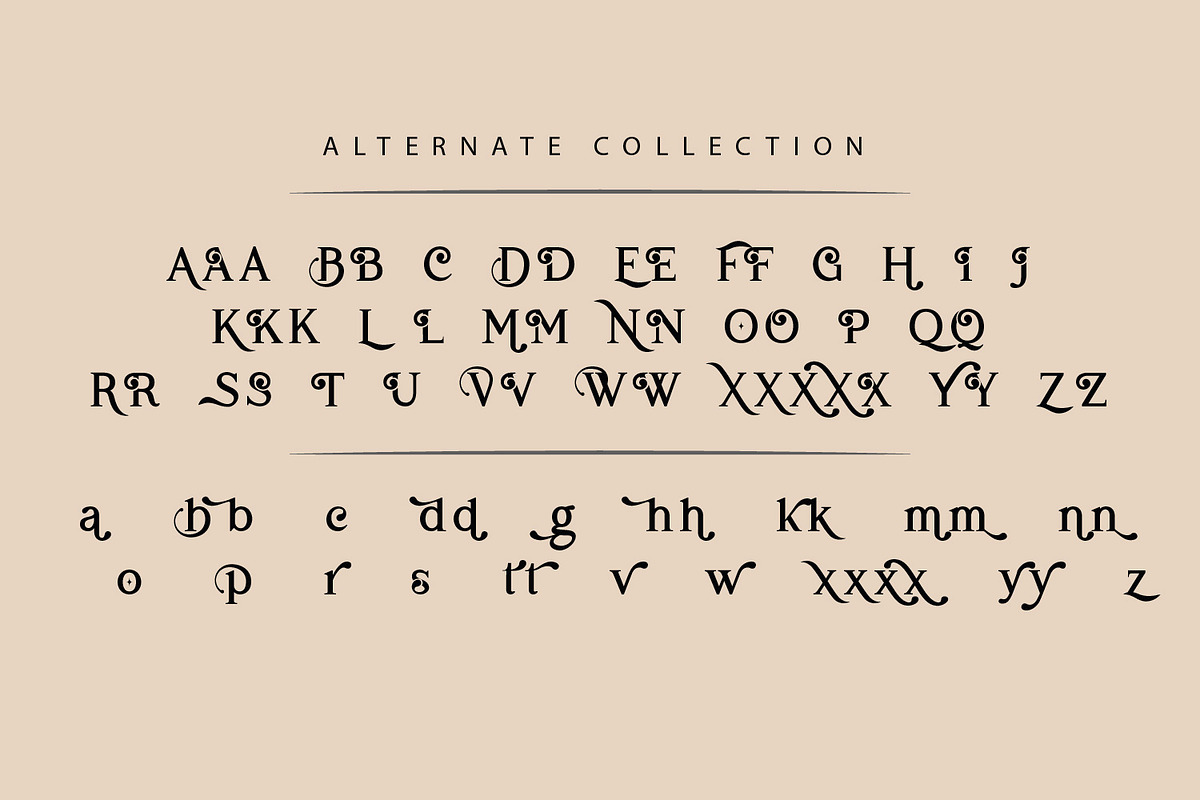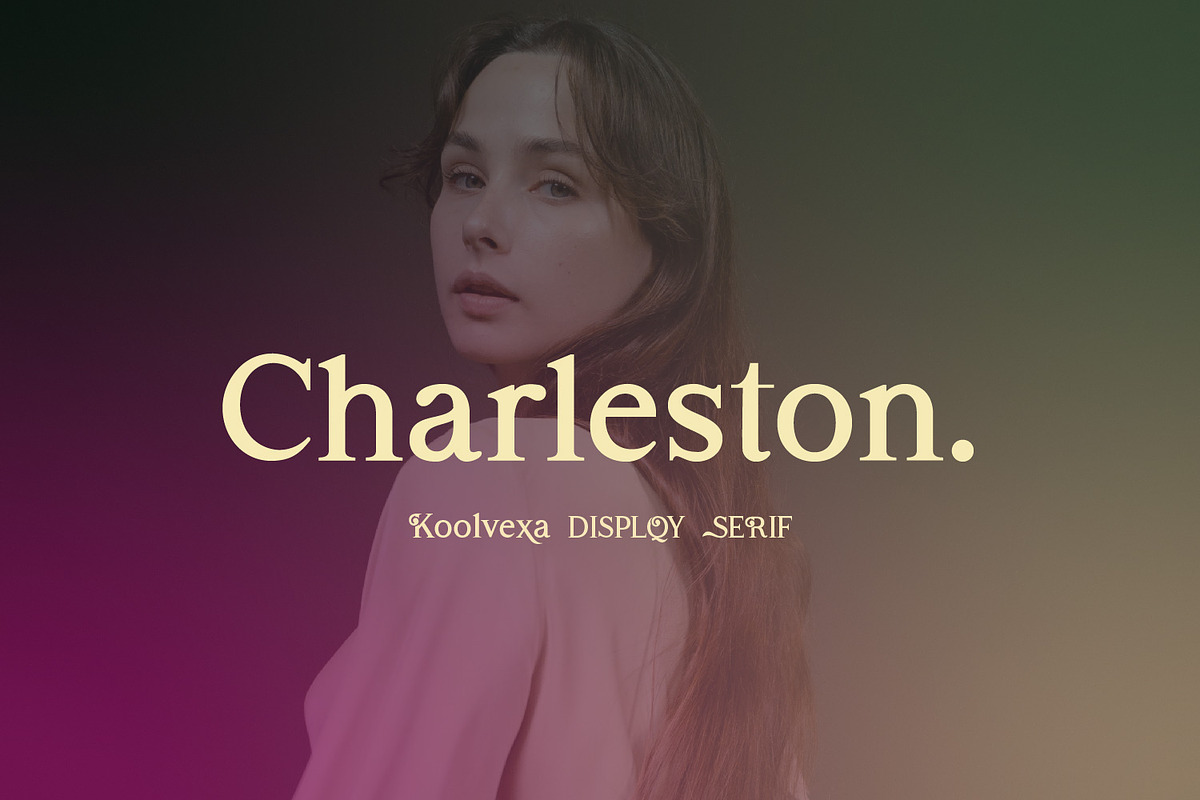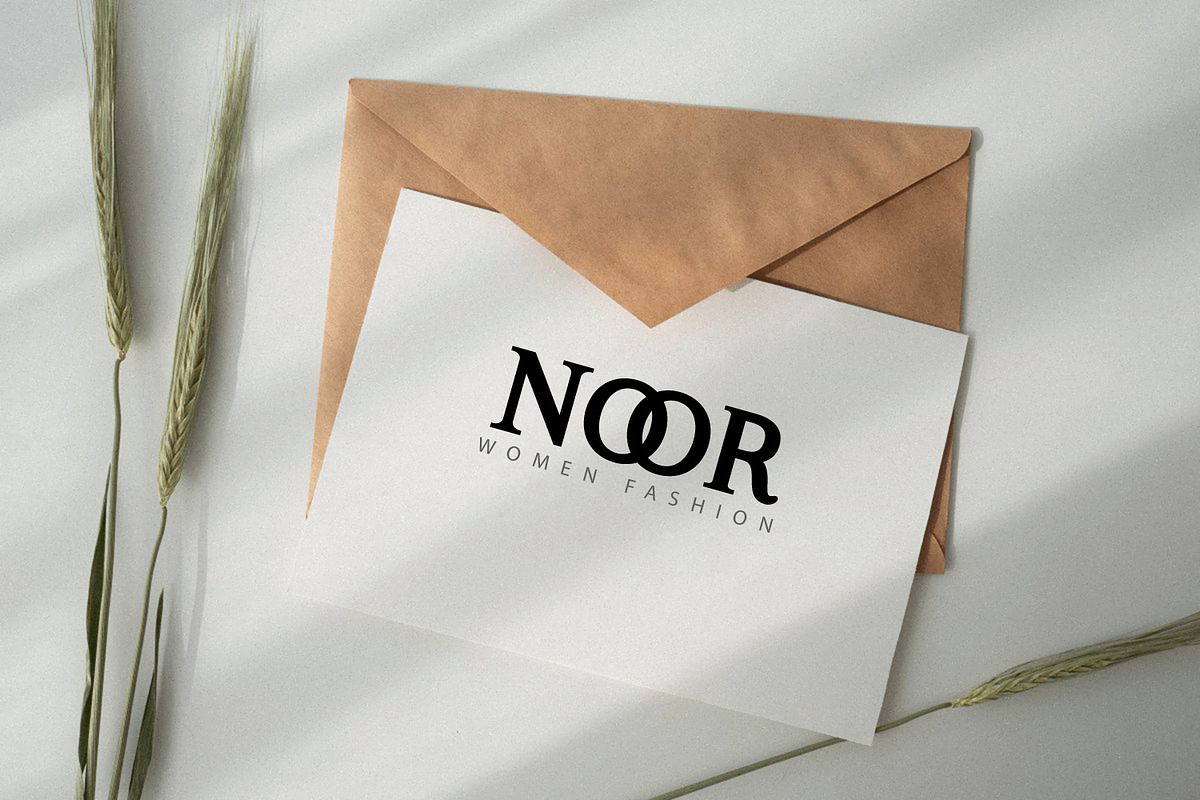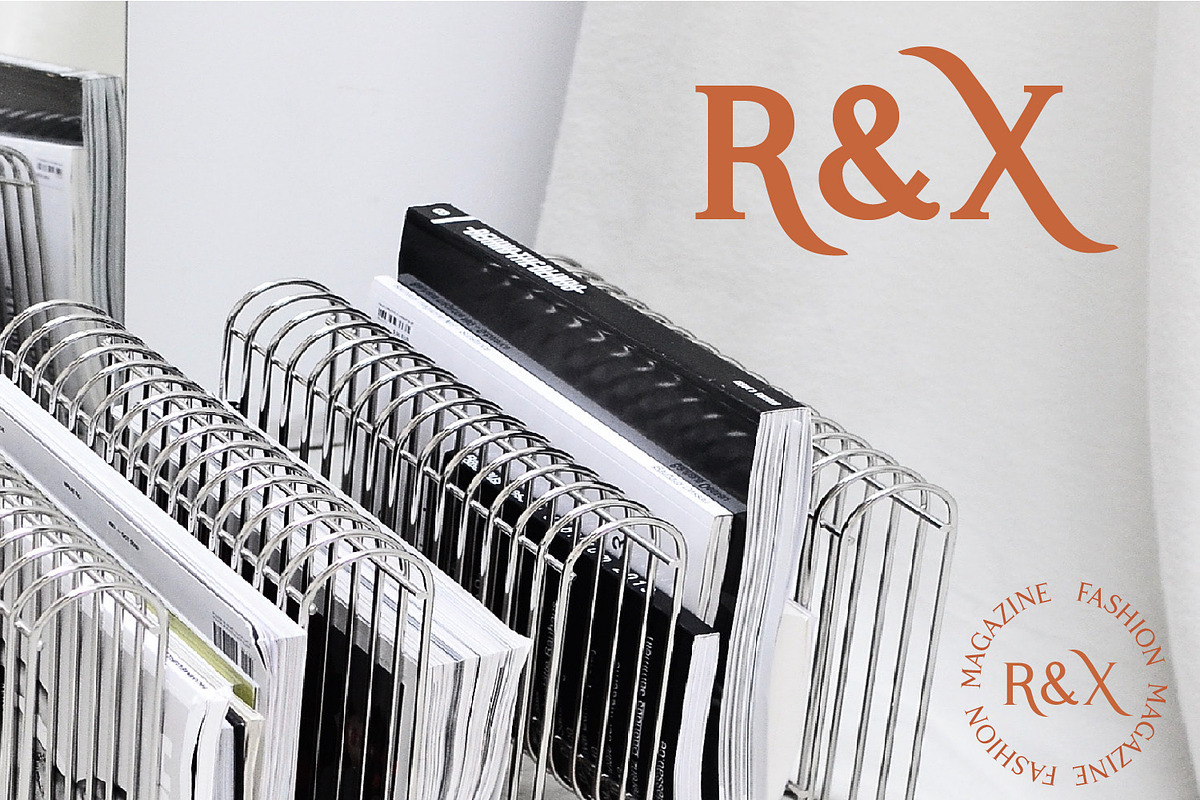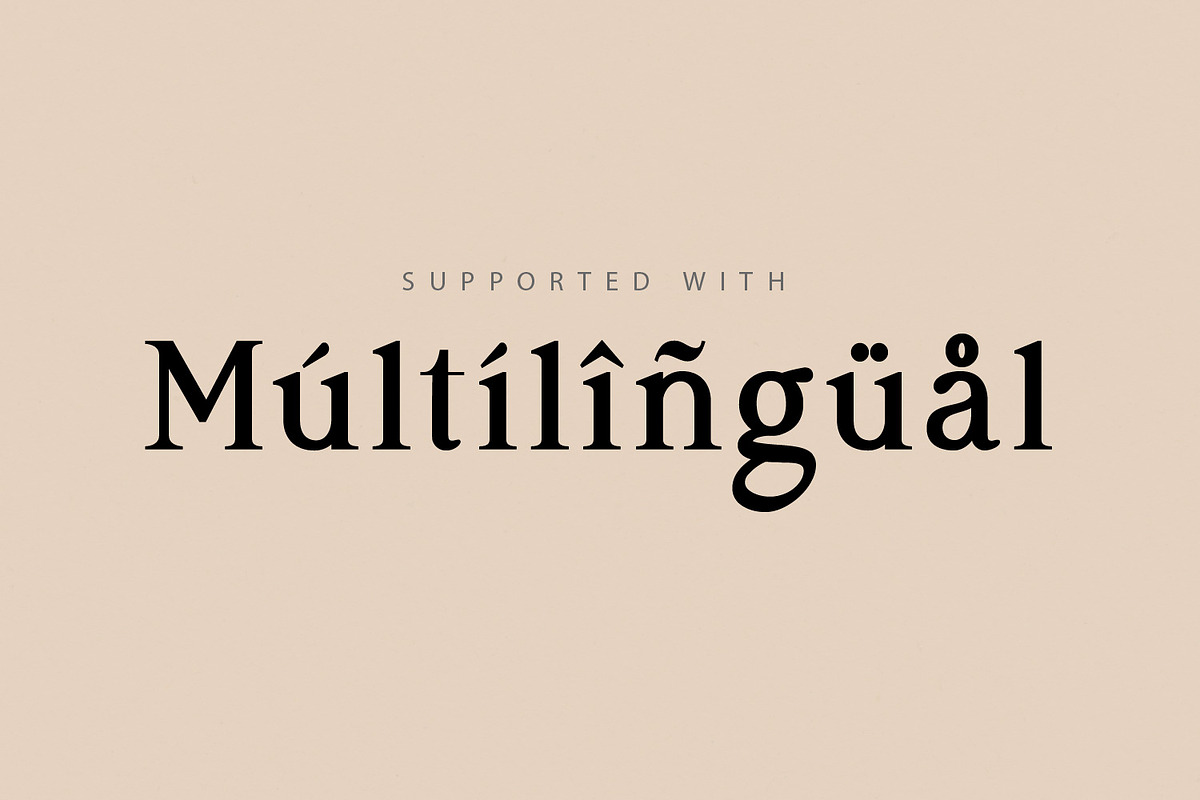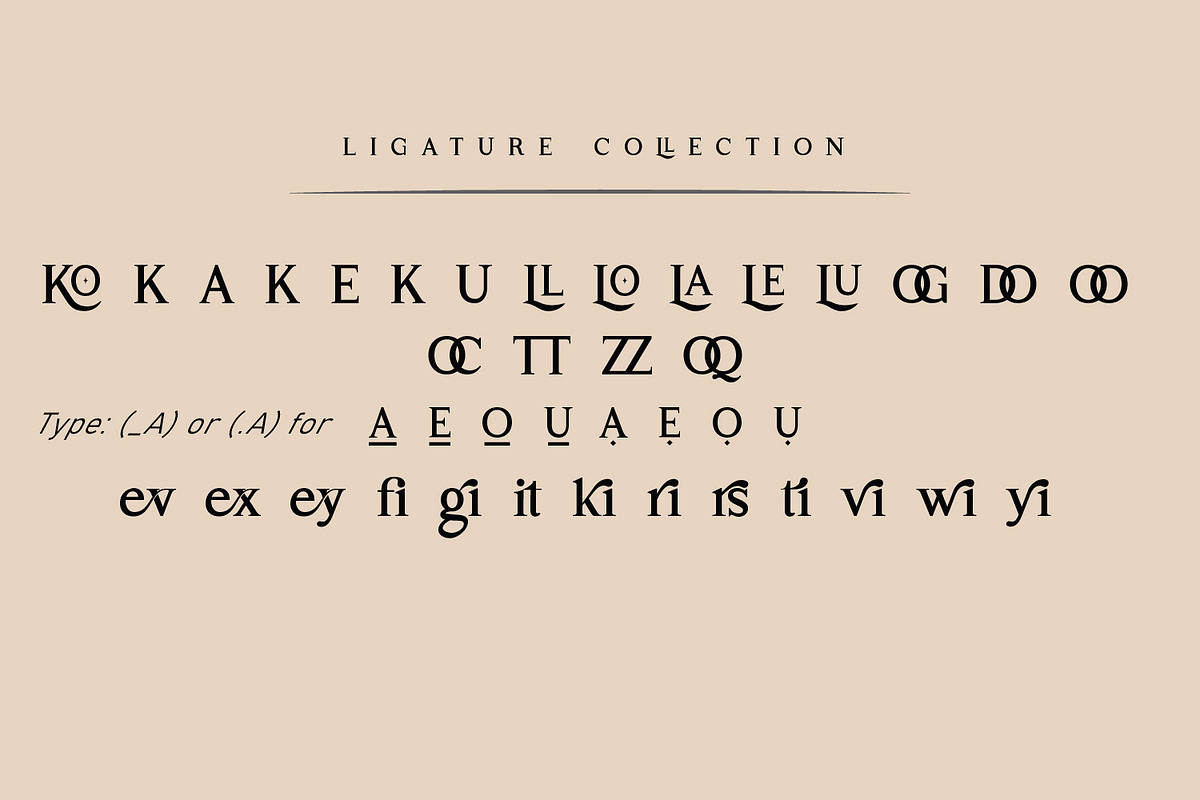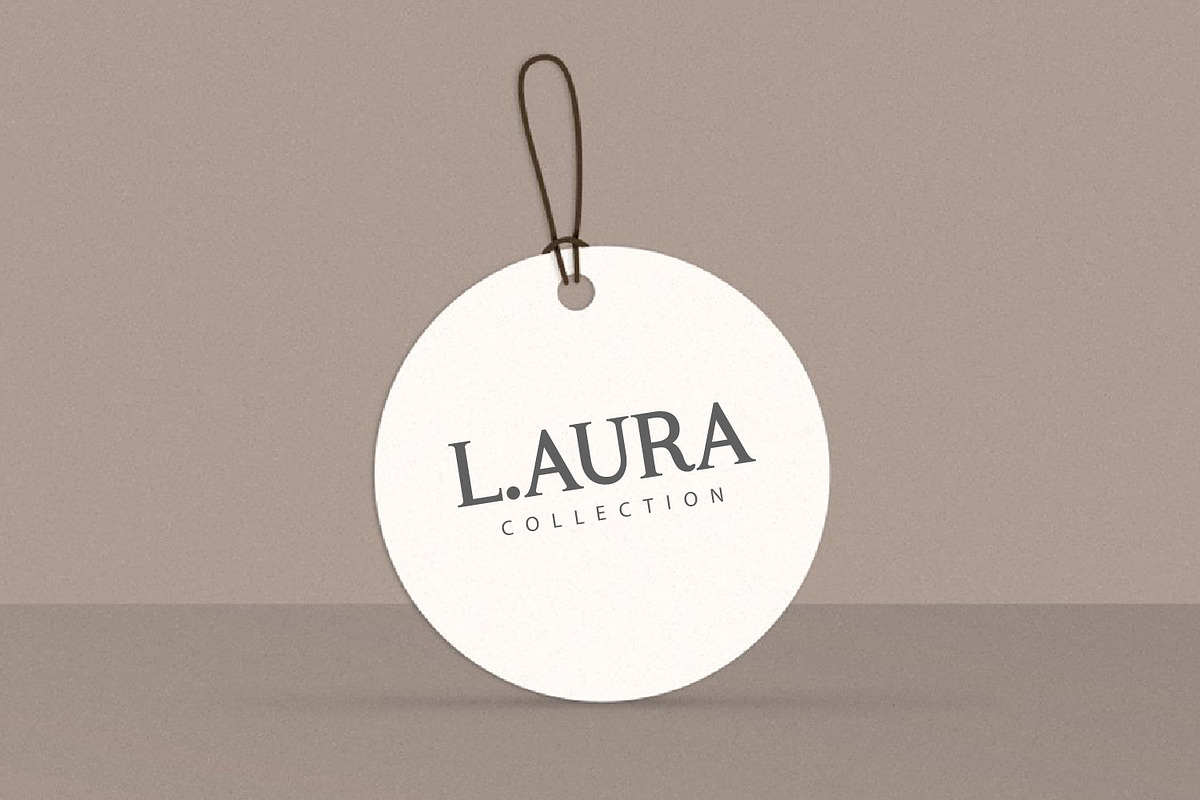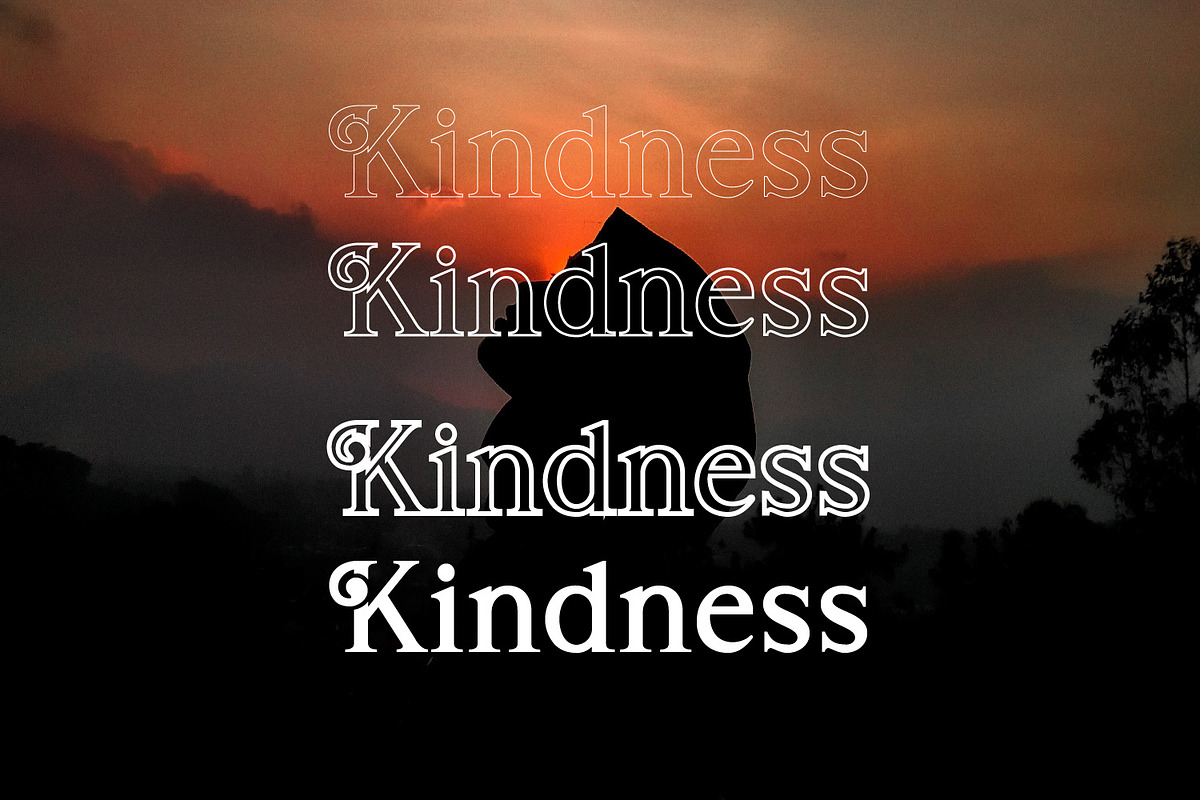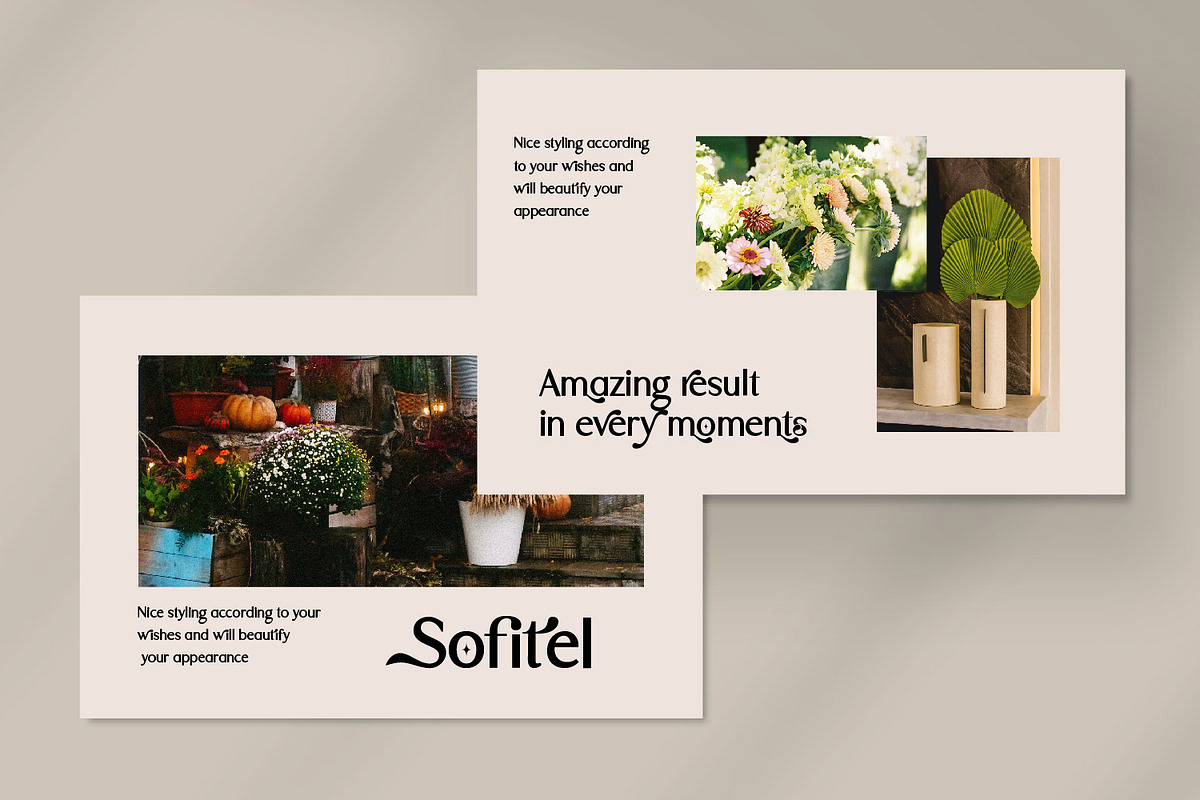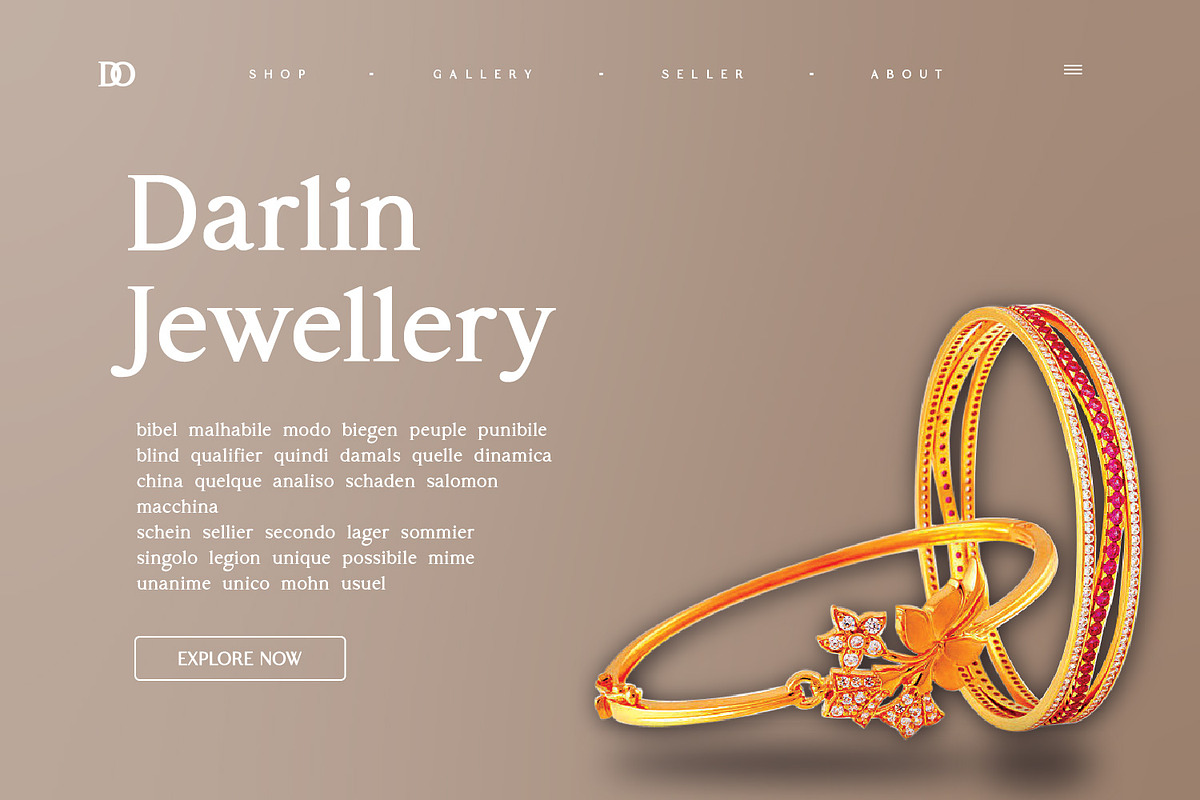
Sofimaria | Elegant Modern Serif
Sofimaria is a super unique ligature font that you wont forget! It’s a high contrast serif that has loads of style. A modern take on a Caslon style typeface, this font is ideal for those bold headings or wedding invitations. It’s got hundreds of characters and ligatures plus all those European letters! Sofimaria pairs perfectly with a light scripts font or minimal sans serif. Main Features:
- Uppercase & Lowercase letters
- Punctuation and special characters
- Ligatures & Alternate glyphs